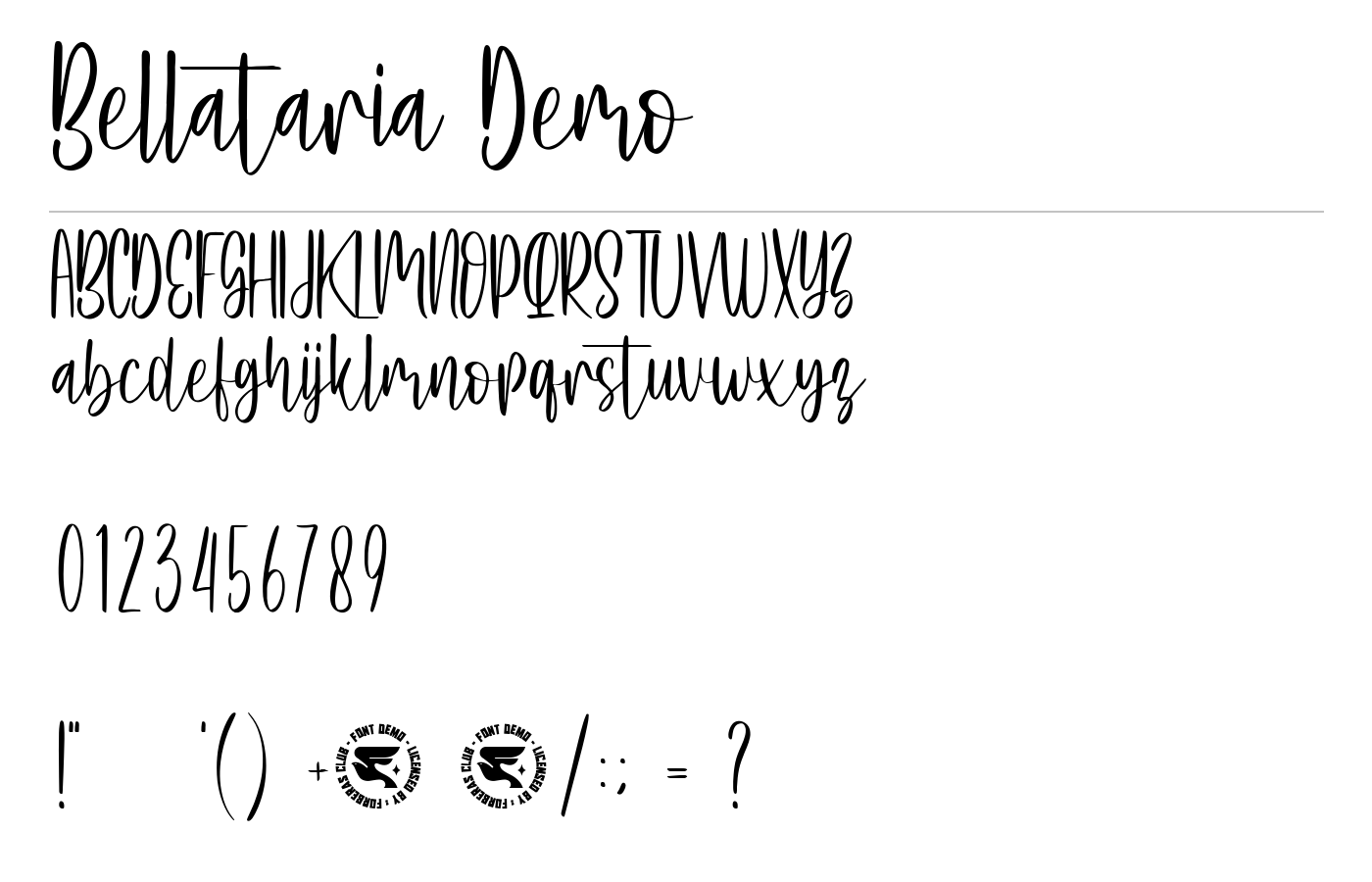
Bellataria Demo is a playful and slender handwritten script font with tall, narrow letterforms and a casual, flowing style. Its consistent stroke weight and charming, slightly quirky character shapes make it perfect for adding a friendly, informal touch to invitations, greeting cards, and creative branding projects. This font works well where a personal, approachable vibe is desired, especially in headlines or decorative uses.
Bellataria Demo Font
About Bellataria Demo Font
| Font family | Bellataria Demo Font |
| Designer | forberas |